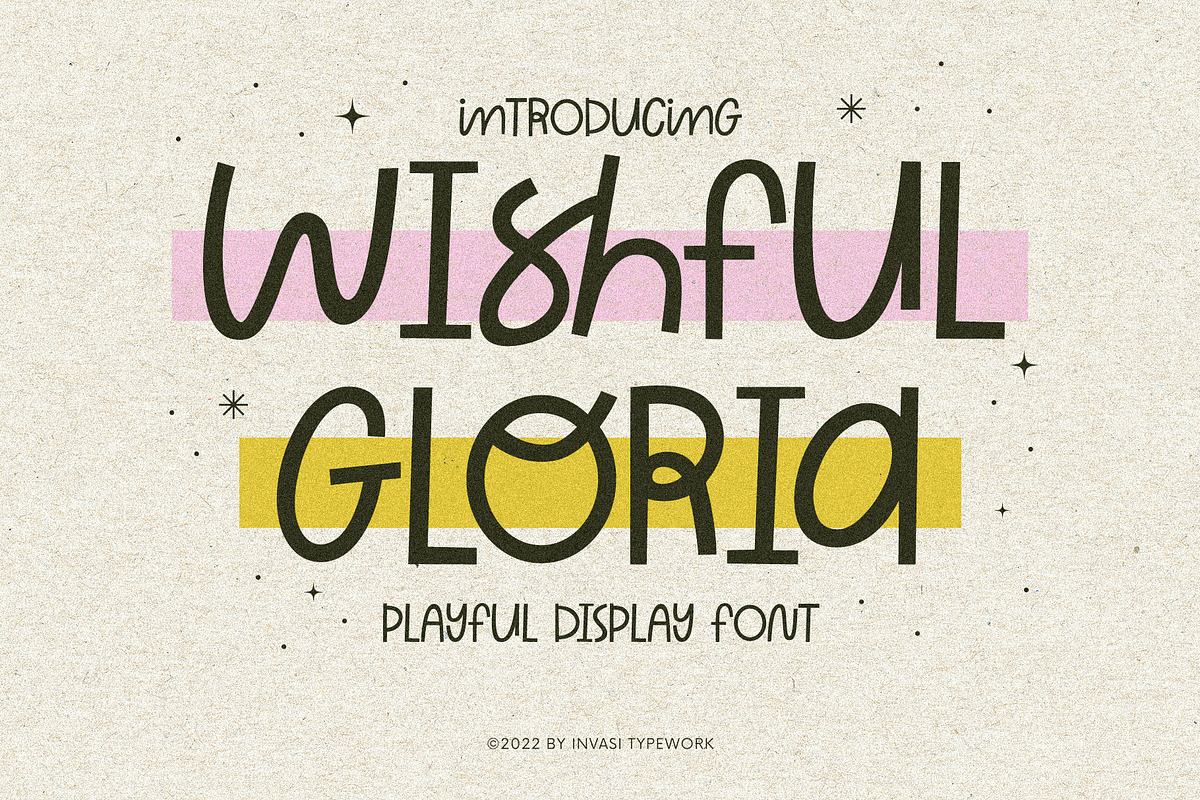
Wishful Gloria - Playful Curly Font Free Download
Wishful Gloria - Playful Curly Font Free Download is a fun and whimsical typeface with curly, playful letterforms. Perfect for designs that need a touch of creativity and charm, this font is ideal for children’s projects, greeting cards, invitations, social media graphics, and anything that requires a lighthearted and friendly vibe.
With its unique curly strokes and bubbly feel, Wishful Gloria adds personality to your typography and brings a joyful, carefree energy to your designs. Whether you're working on a branding project, creating event invitations, or designing fun merchandise, this font is sure to make your designs stand out.
Add some fun and flair to your designs with Wishful Gloria - Playful Curly Font Free Download, and create eye-catching, playful typography for all your creative projects. Perfect for designers looking for a friendly, whimsical font!